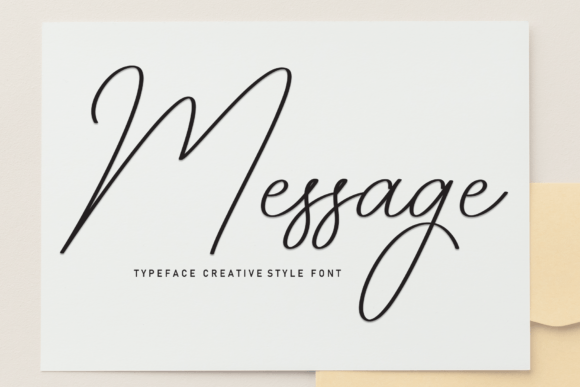
Welcome to the world of Message Font: the ultimate font companion for your heartwarming designs! Immerse yourself in the charming aura of this script font, meticulously crafted by William Jhordi to evoke the essence of sweet friendliness. Whether you're a seasoned designer or just starting your creative journey, Message Font is the perfect choice to add a touch of cozy allure to your projects.
Step into a world where typography meets emotion, where each letter dances across your screen with a graceful flow. Inspired by the warmth of handwritten notes and the beauty of calligraphy, Message Font captures the essence of heartfelt communication. Its delicate strokes and playful curves create a visual symphony that captivates hearts and sparks imagination.
With Message Font as your creative partner, transform your designs into expressions of love, gratitude, and joy. Picture wedding invitations that radiate elegance, cards that carry the weight of heartfelt messages, and posters that exude an aura of whimsical delight. This font doesn't just occupy space; it breathes life into your creations, making them resonate with your audience on a deeper level.
Feast your eyes on the versatility of Message Font, effortlessly adaptable to a myriad of design endeavors. Its welcoming nature blends seamlessly with branding projects, adding a personal touch to logos and packaging. Unleash your inner artist and let Message Font grace your social media posts, bringing a touch of warmth to your digital presence. The possibilities are endless, just like the stories waiting to be told through your designs.
So, dear creative soul, embark on this typographic journey with Message Font. Let its gentle curves and heartfelt charm guide you towards designs that speak to the soul. Remember, it's not just a font; it's an invitation to share your message with the world, one heartwarming design at a time. Download Message Font today and let your creativity flourish!